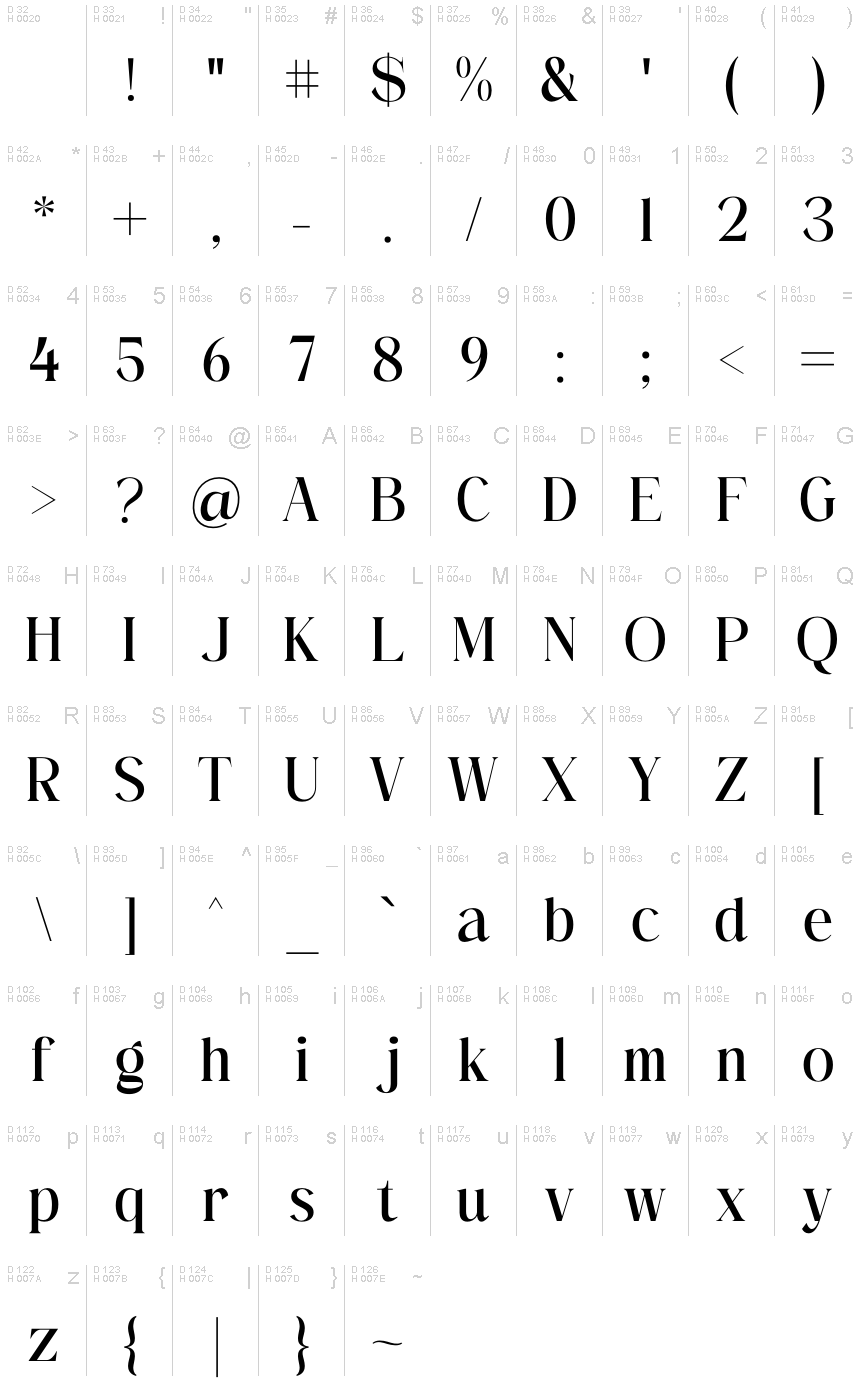
Hatfielin
Hatfielin font by Storytype Studio is a captivating serif typeface that exudes elegance and expertise. Its sophisticated curves and commanding presence make it ideal for designers seeking a timeless yet contemporary flair. The bold, expansive strokes of Hatfielin captivate viewers, drawing attention to its meticulous craftsmanship.
This free font is perfect for high-impact applications such as branding, editorial layouts, and elegant invitations. Its versatile nature ensures legibility while adding a touch of class to any project. Download the Hatfielin font today to elevate your design with this exquisite serif marvel.